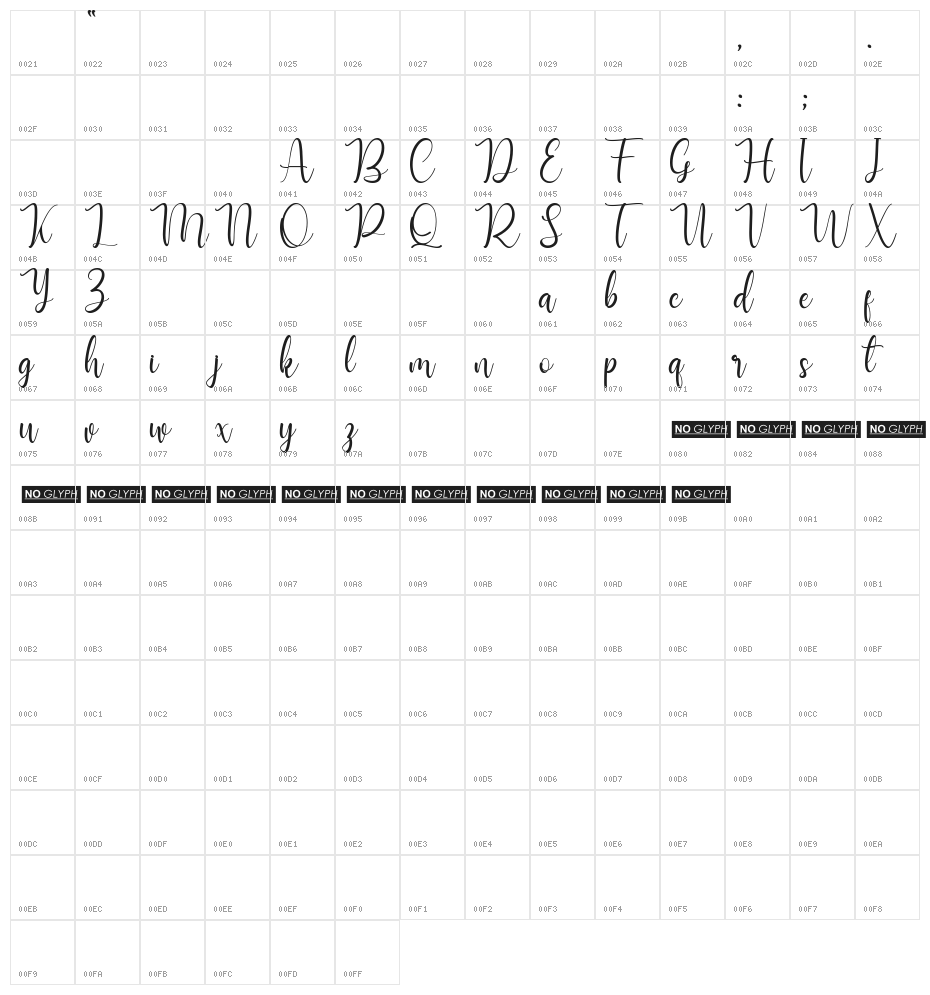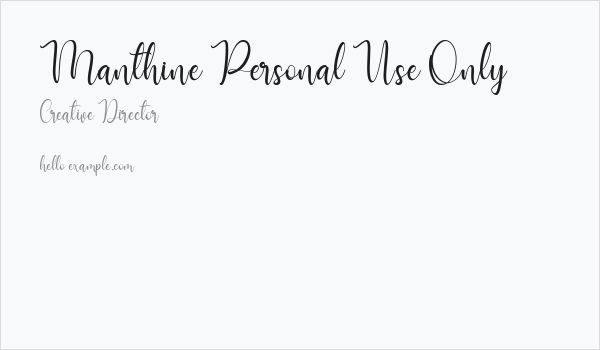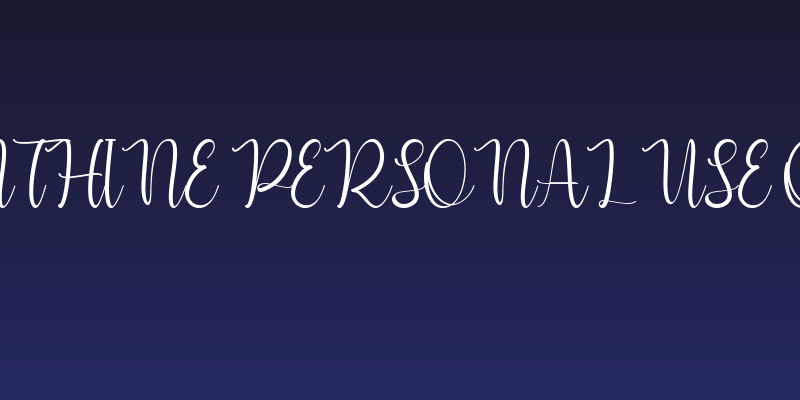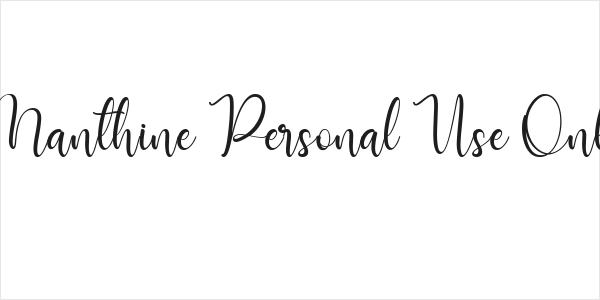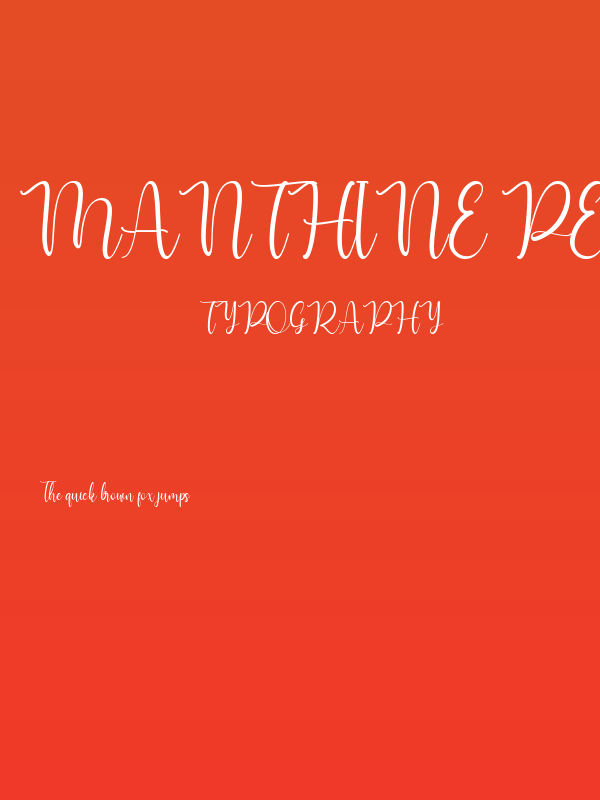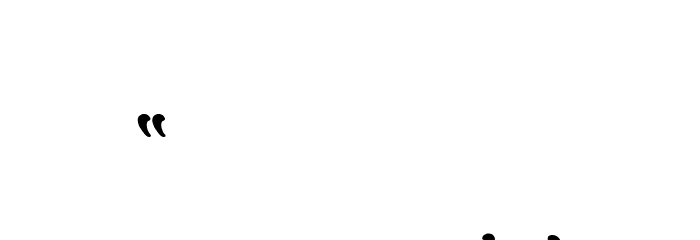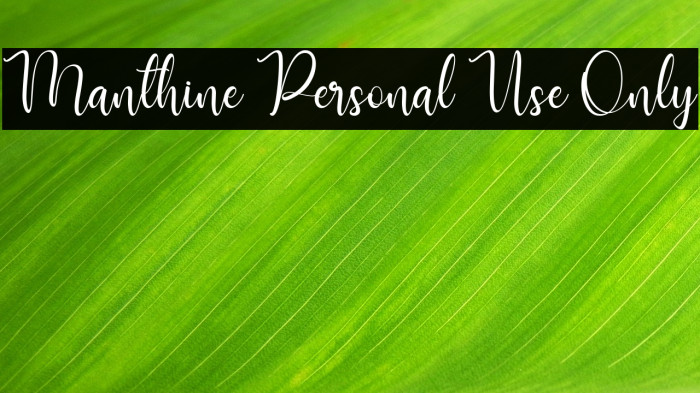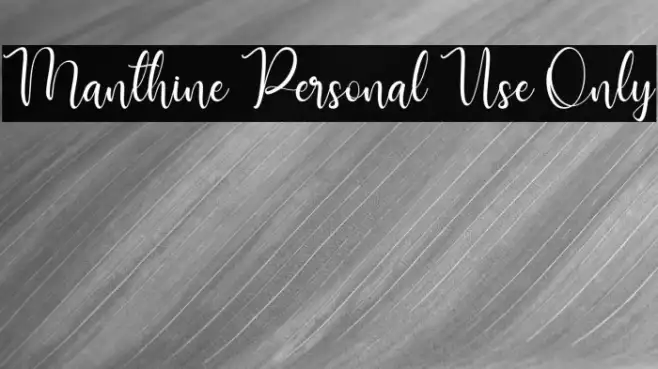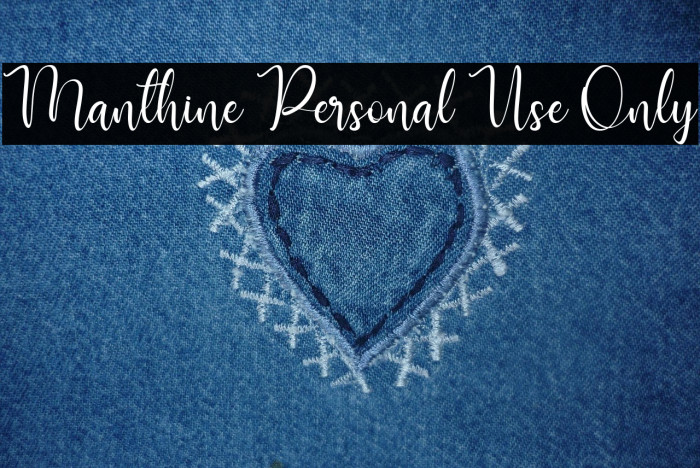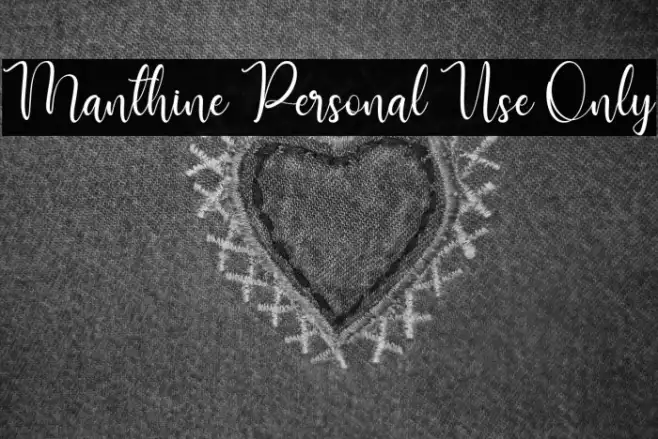
Manthine Personal Use Only Font
Manthine Personal Use Only Description
This font features an elegant and flowing script style, characterized by its smooth, cursive letterforms. The uppercase letters exhibit a graceful, looping design, while the lowercase letters maintain a consistent fluidity, enhancing the overall aesthetic. The font's strokes are moderately thick, providing a balanced contrast that ensures readability while maintaining its decorative appeal. The characters are well-spaced, allowing for a harmonious visual flow. This font exudes a sense of sophistication and charm, making it suitable for a variety of creative applications.
| Proposed Projects | Ideal for wedding invitations, greeting cards, branding, and elegant logo designs. |